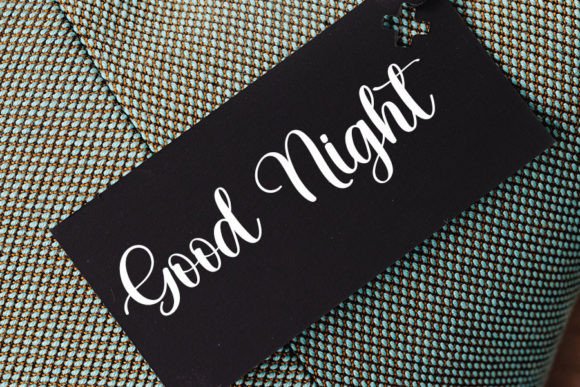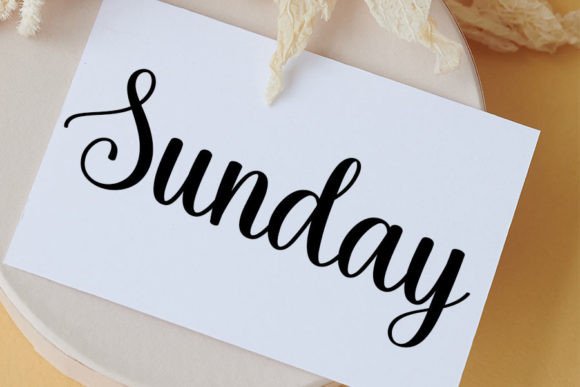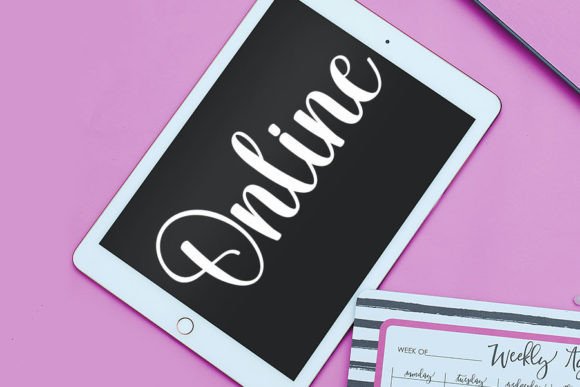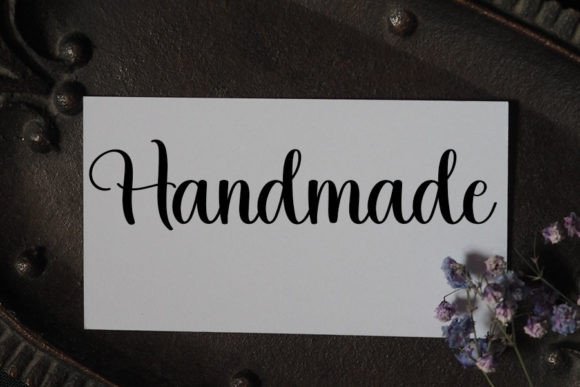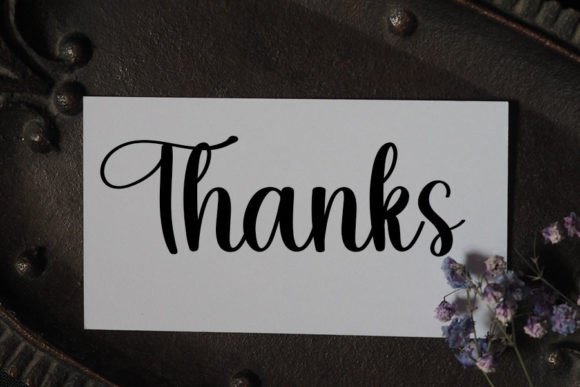
Introducing Animal Font: A Simple Handwritten Delight
Are you on the lookout for a font that can add a touch of simplicity and naturalness to your designs? Look no further than Animal Font! This beautiful, handwritten font is perfect for a wide range of applications, from greeting cards to headlines, and is sure to become a staple in your design toolkit.
What is Animal Font?
Animal Font is a simple, yet elegant handwritten font that is designed to bring a sense of warmth and approachability to your designs. With its clean lines and effortless charm, this font is perfect for designers and crafters who want to add a personal touch to their work.
Key Features of Animal Font
- Simple and Handwritten: Animal Font is a handwritten font that is simple, yet full of character. Its effortless charm makes it perfect for designs that need a personal touch.
- Versatile: This font is incredibly versatile and can be used for a wide range of applications, from greeting cards to headlines, and even social media graphics.
- Natural Feel: Animal Font has a natural, organic feel that makes it perfect for designs that need to feel earthy and approachable.
Uses for Animal Font
- Greeting Cards: Add a personal touch to your greeting cards with Animal Font. Its simple, handwritten charm makes it perfect for birthdays, holidays, and special occasions.
- Headlines: Use Animal Font to add a touch of elegance to your headlines. Its clean lines and effortless charm make it perfect for blog posts, articles, and social media graphics.
- Branding: Animal Font is perfect for branding projects that need a personal touch. Use it to create logos, business cards, and other marketing materials that need to feel approachable and natural.
- Crafting: If you’re a crafter, you’ll love Animal Font! Use it to create signs, labels, and other DIY projects that need a personal touch.
Why Choose Animal Font?
So, why choose Animal Font over other fonts? Here are a few reasons why designers and crafters love this beautiful, handwritten font:
- Easy to Read: Animal Font is incredibly easy to read, even at small sizes. This makes it perfect for designs that need to be clear and concise.
- Highly Versatile: This font is incredibly versatile and can be used for a wide range of applications.
- Unique and Personal: Animal Font has a unique, personal feel that makes it perfect for designs that need to stand out from the crowd.
Tips for Using Animal Font
- Pair it with Other Fonts: Animal Font pairs perfectly with other fonts, especially bold and sans-serif fonts. Experiment with different combinations to find the perfect look for your design.
- Use it for Headlines and Titles: Animal Font is perfect for headlines and titles. Use it to add a touch of elegance and sophistication to your designs.
- Experiment with Colors: Animal Font looks great in a variety of colors. Experiment with different colors and combinations to find the perfect look for your design.
| Font Name | Animal Font |
| Author | Ganden Letter |
Animal Font is a beautiful, handwritten font that is perfect for designers and crafters who want to add a touch of simplicity and naturalness to their designs. With its clean lines, effortless charm, and highly versatile nature, this font is sure to become a staple in your design toolkit. Whether you’re creating greeting cards, headlines, or branding materials, Animal Font is the perfect choice.